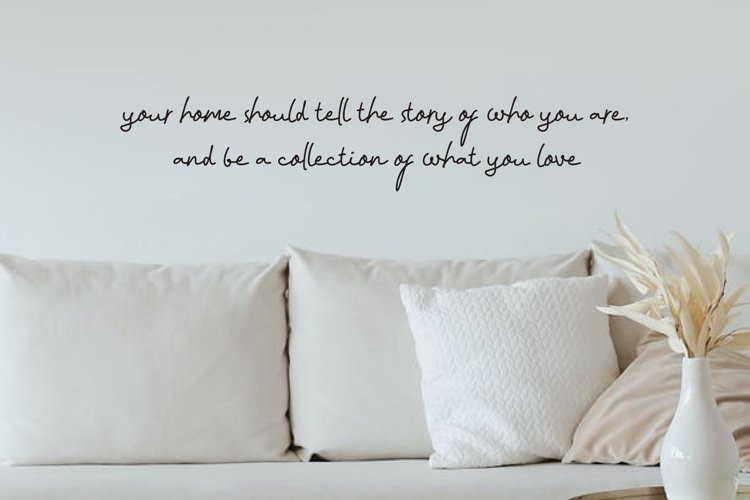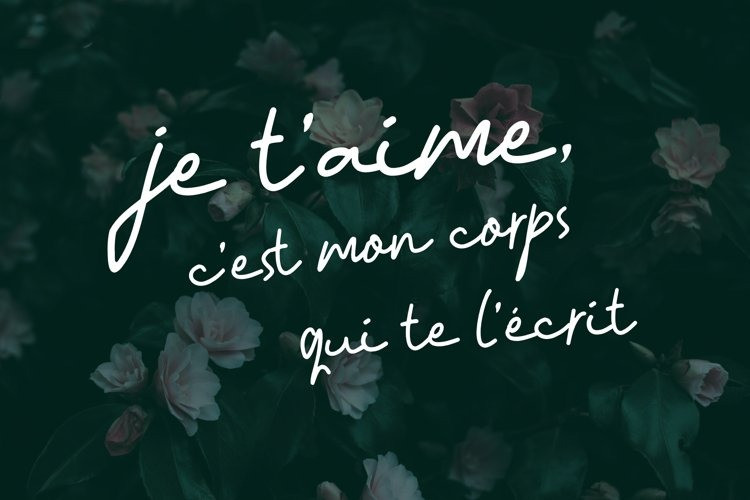
Taslymah Calligraphy Font
Taslymah is a delicate and flowing handwritten font. It looks stunning on wedding invitations, thank you cards, quotes, greeting cards, logos, business cards and every other design which needs a handwritten touch.